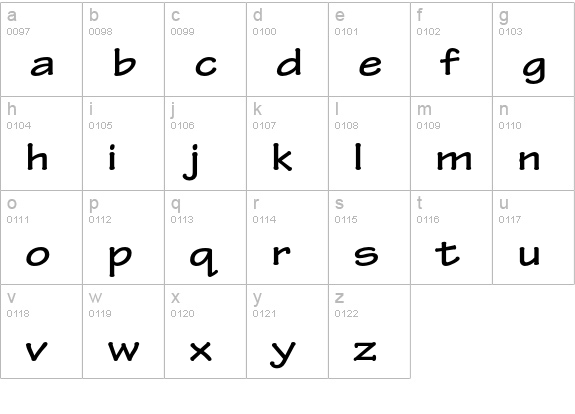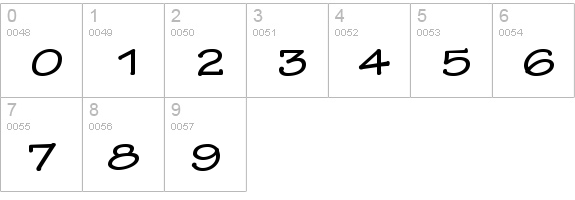
Tekton Pro Bold Extended is a strong, high-contrast, extended-width variant in the Tekton typeface family \xE2\x80\x94 well suited to headlines, attention-grabbing titles, and strong calls-to-action.
Tekton Pro Bold Extended is a bold and commanding font that exudes strength and confidence. Its extended and bold letterforms make a powerful statement, perfect for headlines, titles, and graphic designs that require a strong visual impact. With its clean and legible style, Tekton Pro Bold Extended is highly versatile and can be used in various design projects, from posters and advertisements to logos and packaging. Its bold and extended letterforms ensure maximum visibility and make a lasting impression on the viewer. One of the standout features of Tekton Pro Bold Extended is that it is freely available to download at FontsMarket.com. This means that designers and creatives can easily access this remarkable font without any hassle or cost. Whether you're a professional designer or a hobbyist, having access to high-quality fonts like Tekton Pro Bold Extended can greatly enhance your creative endeavors. The font's sleek and modern appearance, combined with its bold and extended letterforms, makes it an exceptional choice for projects that require a contemporary and impactful aesthetic. Its versatility allows it to be used in a wide range of design styles, from minimalist and clean to bold and expressive. With Tekton Pro Bold Extended, you can effortlessly elevate your designs and captivate your audience. Its bold and extended letterforms demand attention and create a sense of authority and power. Whether you're designing a poster for a concert, creating a logo for a new brand, or crafting a headline for a magazine, Tekton Pro Bold Extended will undoubtedly make a lasting impression. In conclusion, Tekton Pro Bold Extended is a striking and versatile font that is freely available to download at FontsMarket.com. Its bold and extended letterforms make a bold statement and ensure maximum visibility. Whether you're a professional designer or a hobbyist, this font is a valuable addition to your creative toolkit. So why wait? Download Tekton Pro Bold Extended today and unleash your creativity like never before.